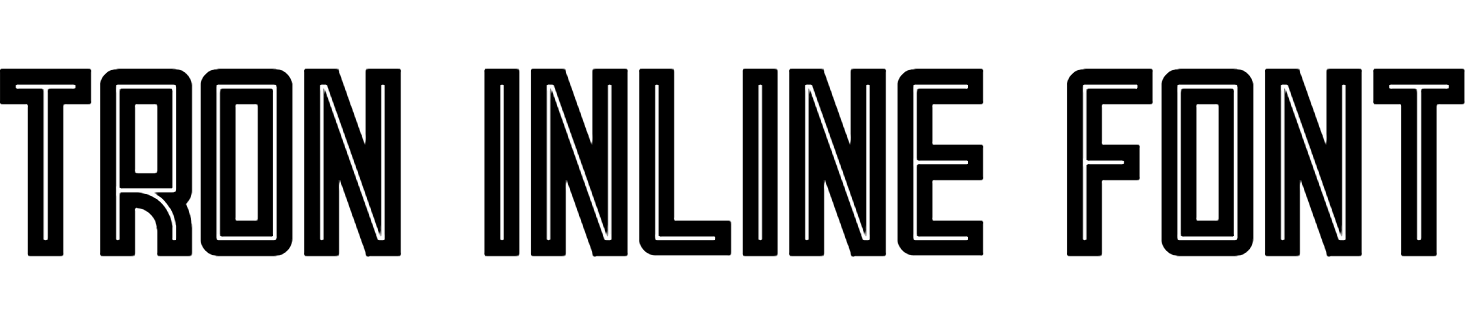
Tron Inline
Tron Inline is a fancy font made by cruzine (2017). Bold and full of character, it's built to stand out rather than blend in. You can download it for free and test it with your own words in the preview above.
- Designer: cruzine
- Font styles: 1 (Bold Inline)
What You Can Type With Tron Inline
Tron Inline covers the full alphabet in upper and lowercase, plus all ten numbers, so you can set names, dates and prices without switching fonts. Everyday marks like &, !, ? and @ are there too. There are no accented letters like é or ñ, so it's best kept to English text.
Where Tron Inline Works Best
Tron Inline is a natural fit for posters, logos and eye-catching headlines. Its lowercase letters are tall compared to the capitals, which keeps it readable at smaller sizes. Use it for one standout word or headline and let simpler fonts handle the rest.
Who designed Tron Inline font?
Does Tron Inline support accented letters?
No. Tron Inline has no accented letters such as é, ñ or ü, so it's best for English text.